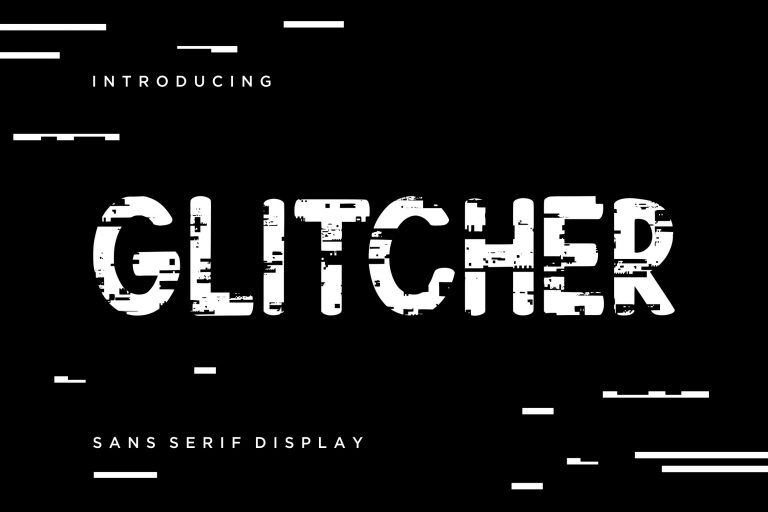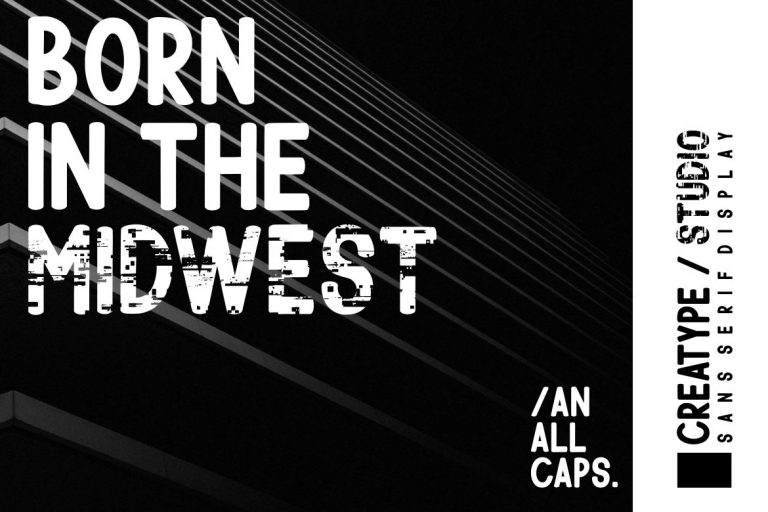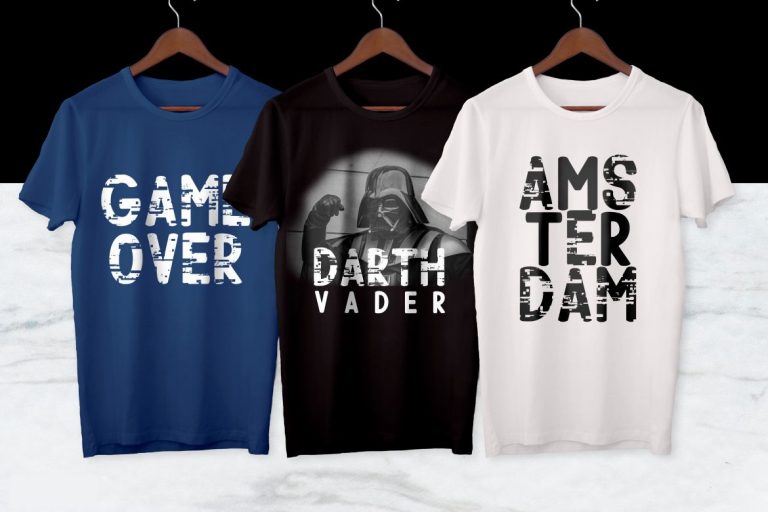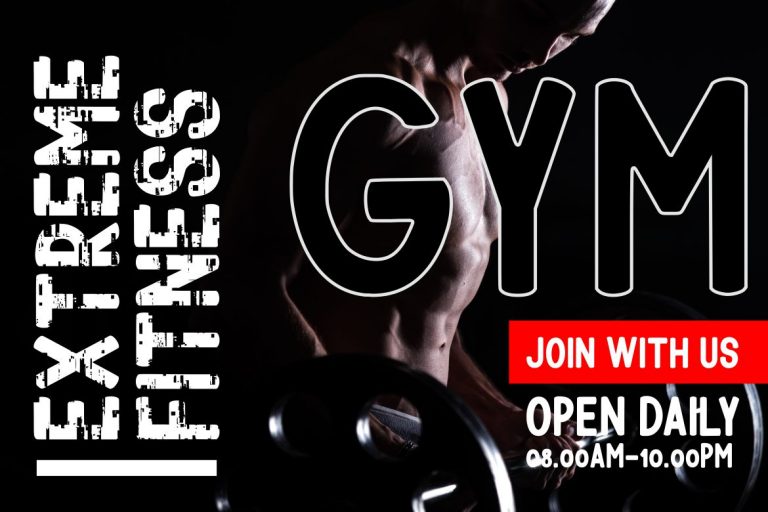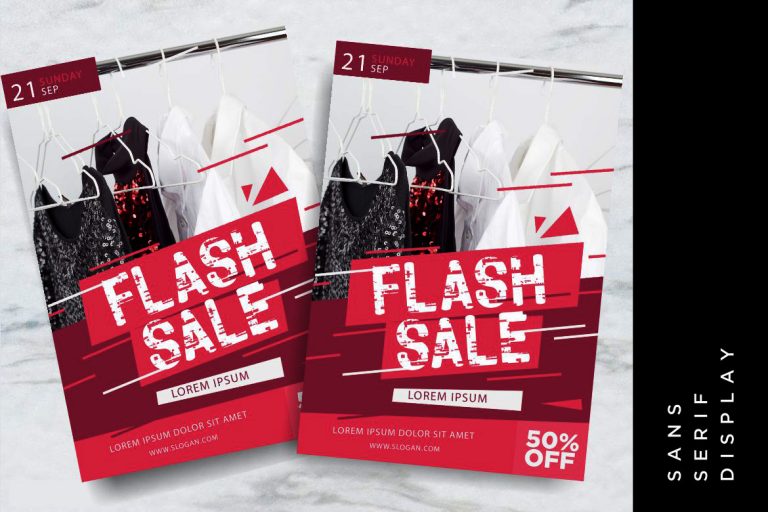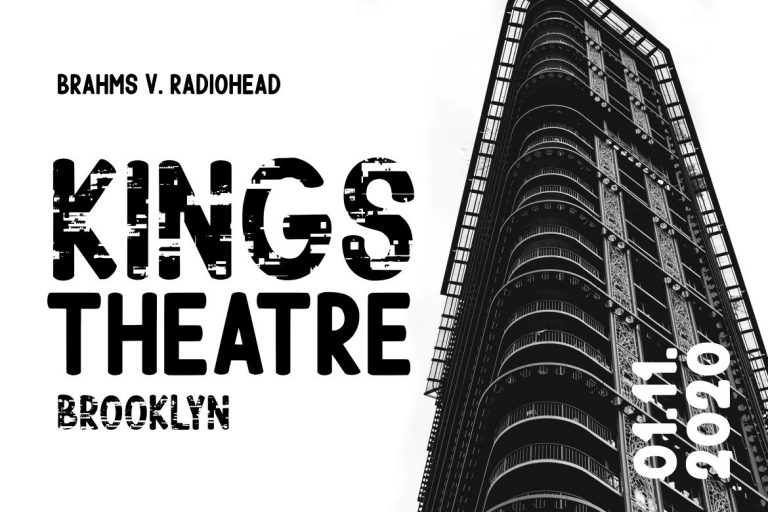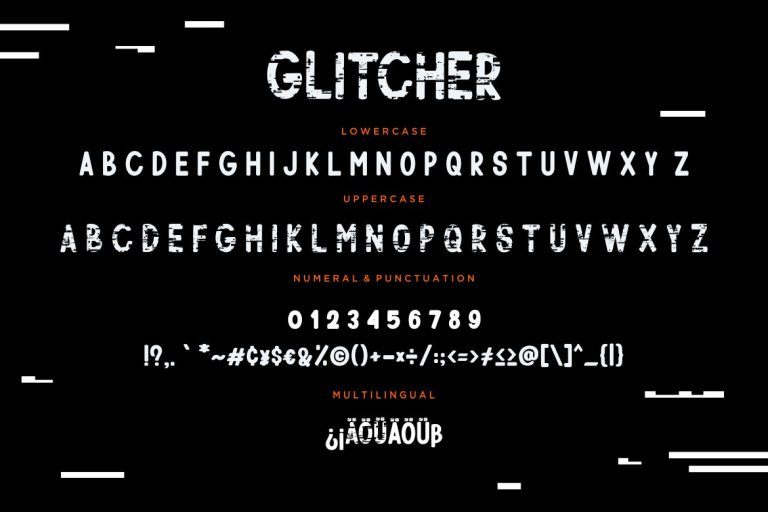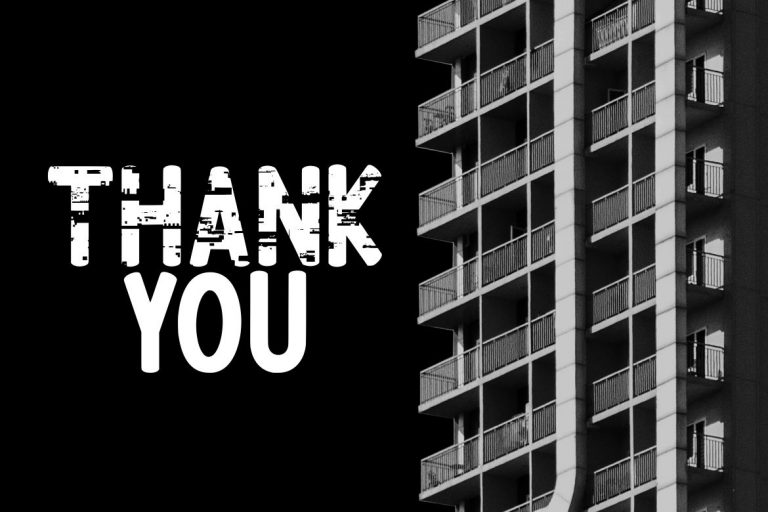
Glitcher Sans Serif Display
Glitcher is a sans-serif display font with glitch effect will make your latest project looks amazing.
Glitcher is perfect for branding projects, logo, wedding designs, social media posts, advertisements, product packaging, product designs, label, photography, watermark, invitation, stationery and any projects that need handwriting taste.
- Fonts include multilingual support for; ä ö ü Ä Ö Ü ß ¿ ¡